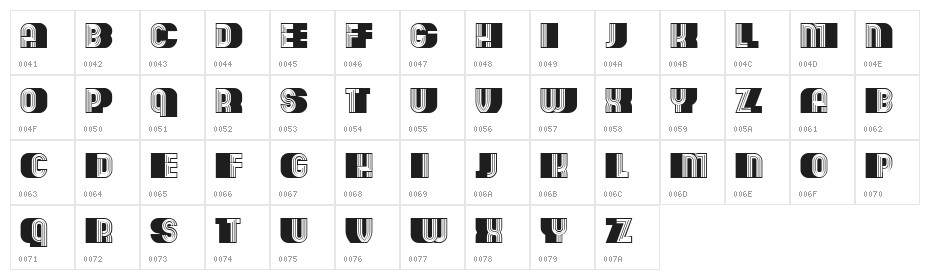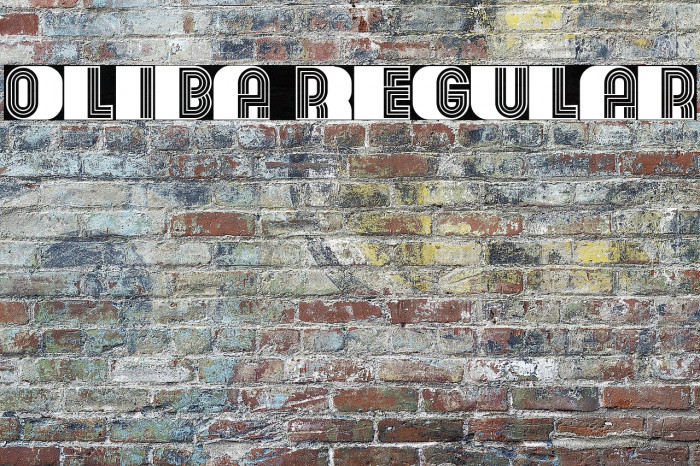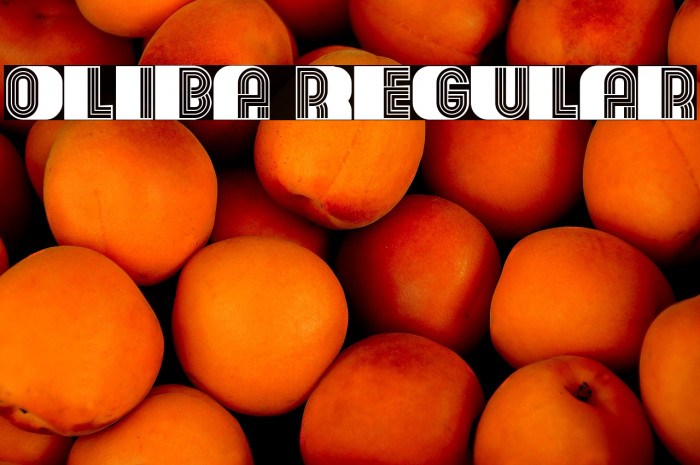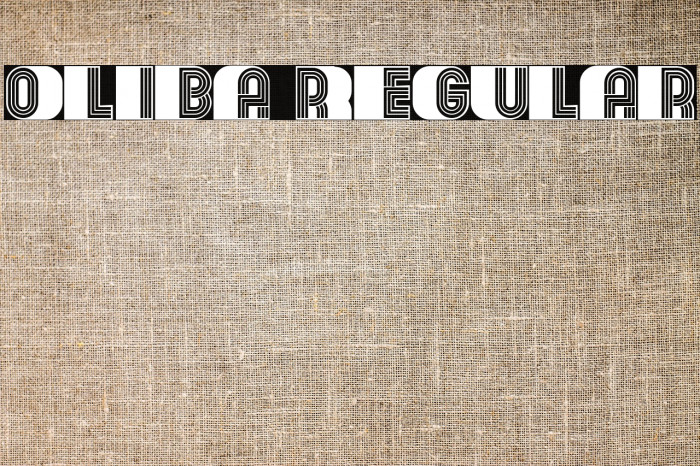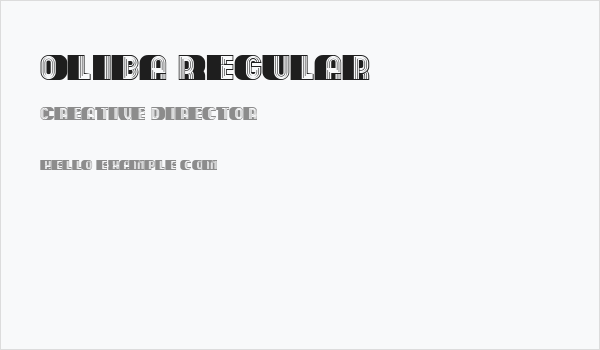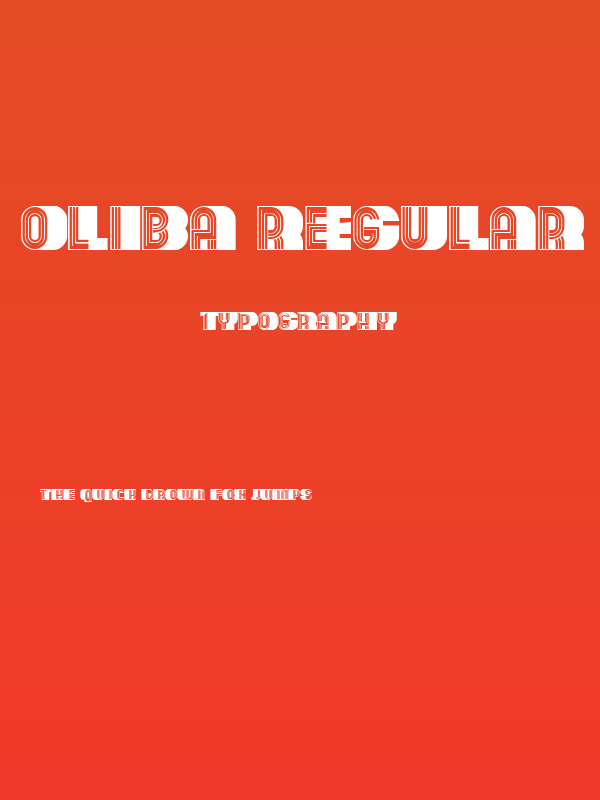
Oliba Regular Font
Oliba Regular Description
This font features a bold, decorative style with a unique striped pattern within each letter. The design is characterized by its geometric shapes and high contrast between the thick and thin lines, creating a striking visual effect. The uppercase and lowercase letters maintain a consistent style, with the uppercase being more prominent. The font's playful and artistic nature makes it ideal for creative projects. The characters are evenly spaced, ensuring readability while maintaining its decorative appeal.
| Overall Style | Modern, Decorative |
| Proposed Projects | Ideal for posters, logos, branding, and creative design projects that require a bold statement. |